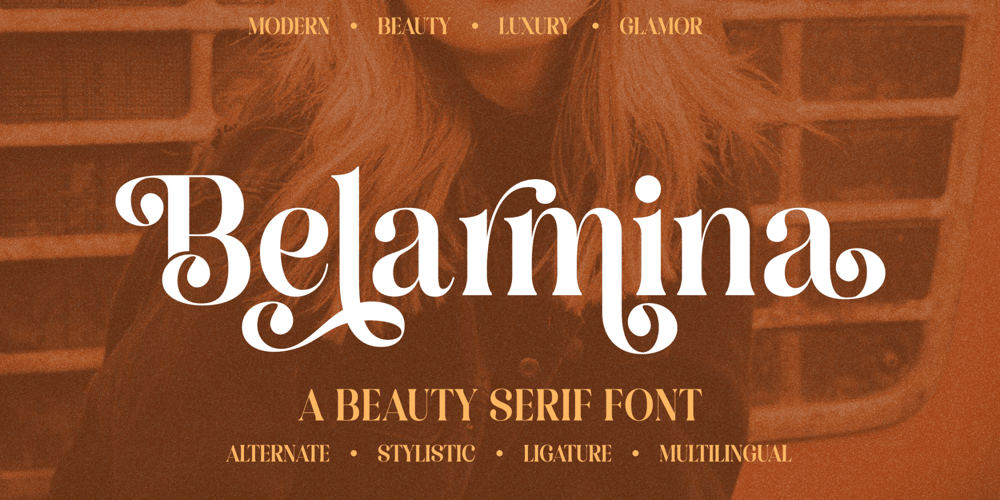
Belarmina Font Family was designed by Firman Maulana and published by Agny Hasya Studio. Belarmina contains 2 styles and family package options. Belarmina is a Modern & Beauty Serif Display Font Featured with Uppercase and Lowercase, Numeral and Punctuation, Multilingual Support, and Opentype Features. Perfect for your design projects like logos, branding, advertising, product designs, stationery, photography, art quotes, wedding designs, fashion designs, and more.